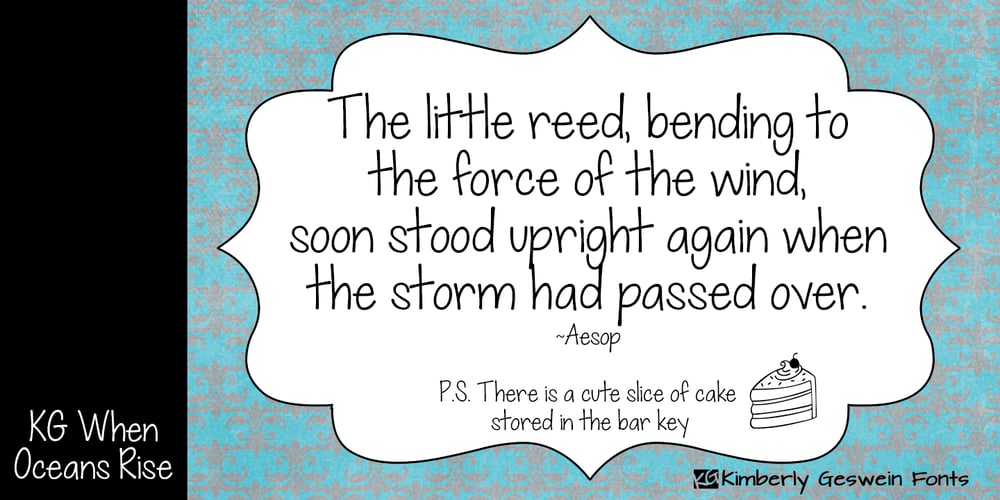
KG When Oceans Rise Font Family was designed by Kimberly Geswein and published by Kimberly Geswein. KG When Oceans Rise contains 1 styles and family package options. A neat handwritten font in an upright, feminine style. The bar key | contains a cute slice of cake.